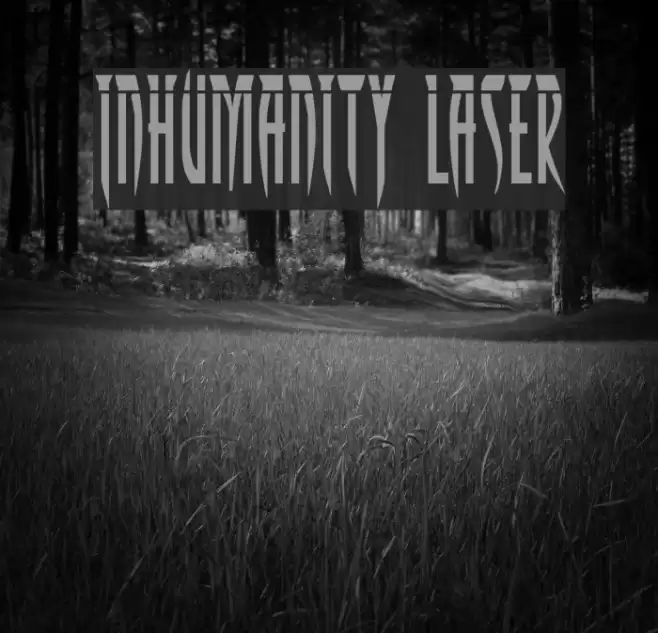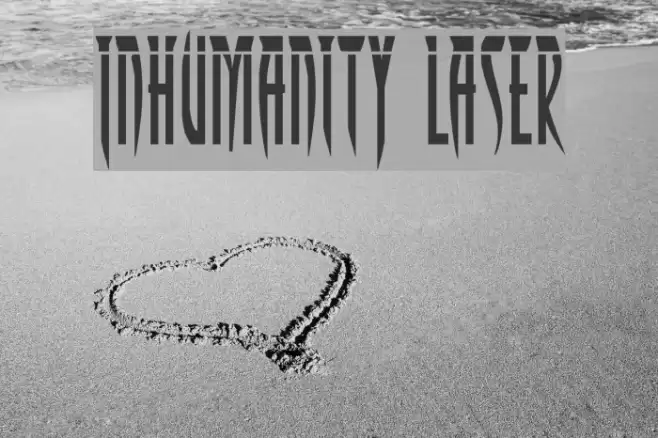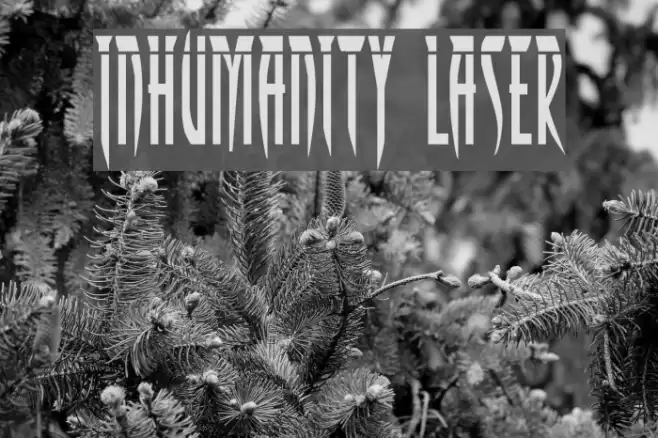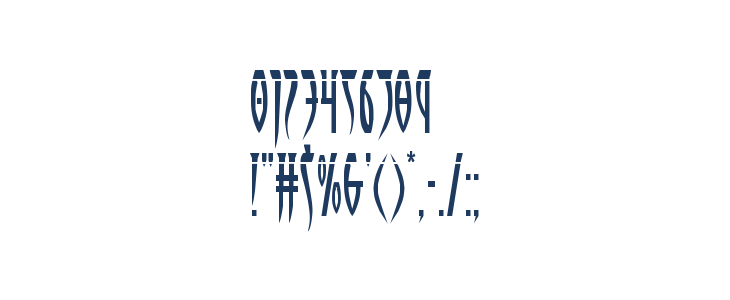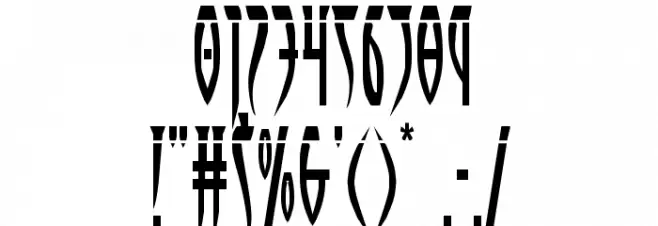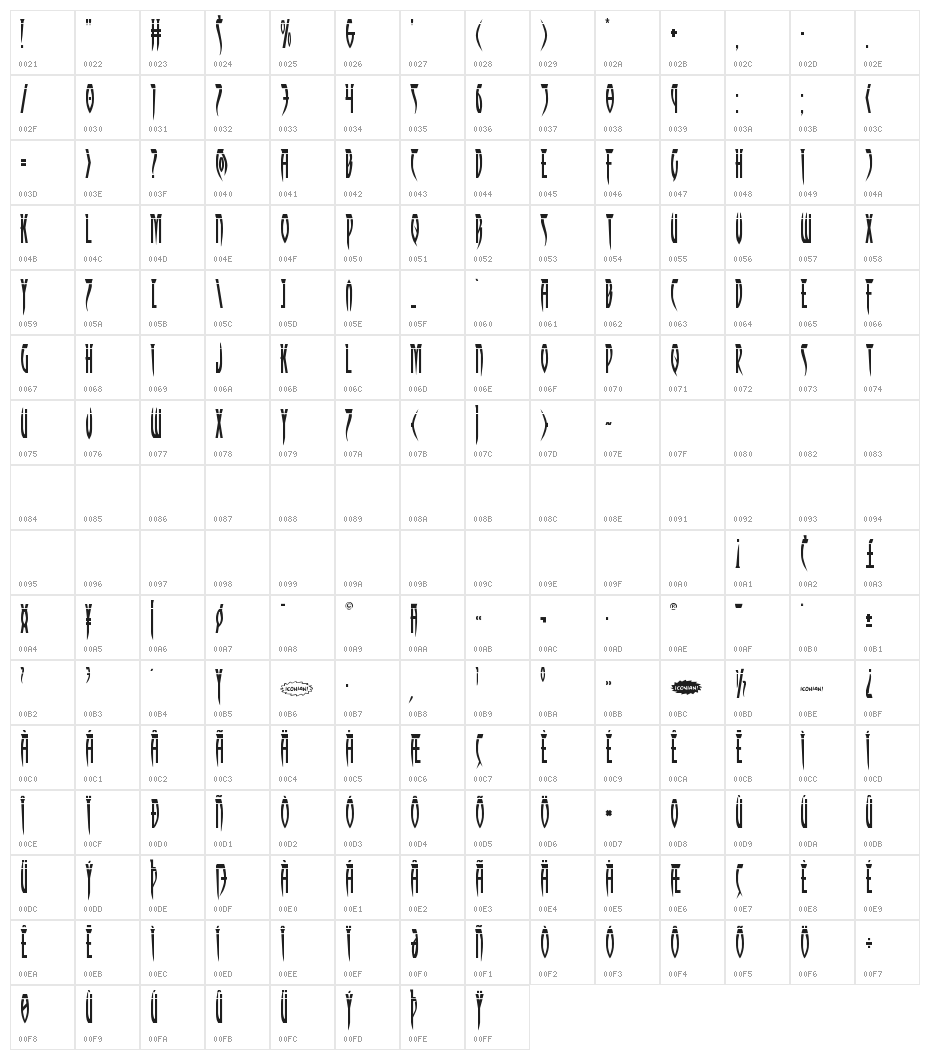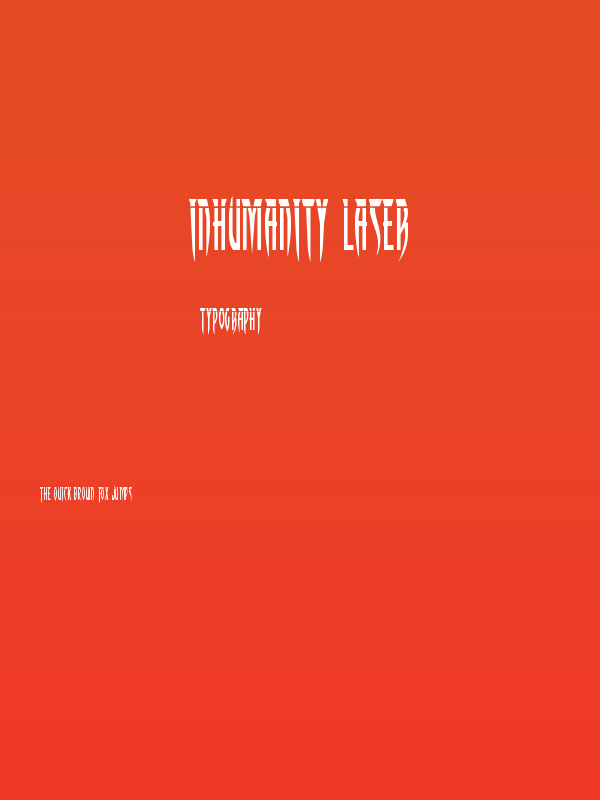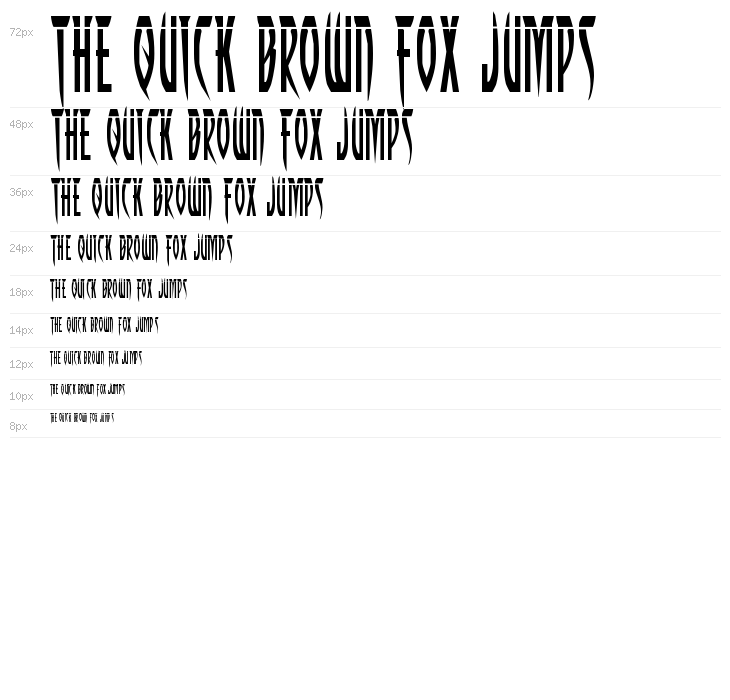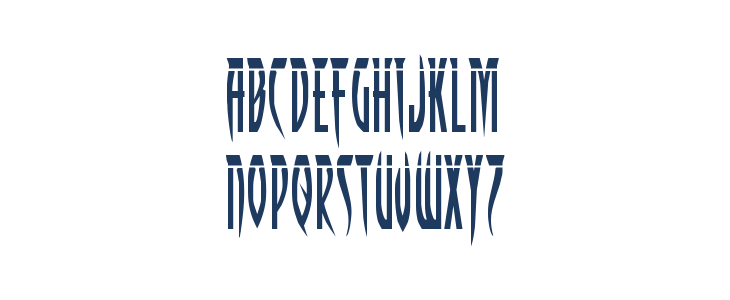
Inhumanity Laser Font
Inhumanity Laser Description
This font features a futuristic and angular design, characterized by sharp, elongated strokes and a distinct geometric structure. The uppercase and lowercase letters maintain a consistent height, creating a uniform appearance. The numerals and special characters follow the same stylistic cues, enhancing the overall cohesiveness. The font's unique style is reminiscent of science fiction themes, with a bold presence that commands attention. Its narrow width and tight character spacing contribute to a compact and efficient look, making it suitable for impactful headlines and titles.
A futuristic, angular font with sharp, elongated strokes and a geometric structure from Uncategorized fonts.
- Proposed Projects: Ideal for sci-fi themed posters, video game titles, and futuristic branding projects.
- Character Spacing: Tight
- Overall Style: Futuristic